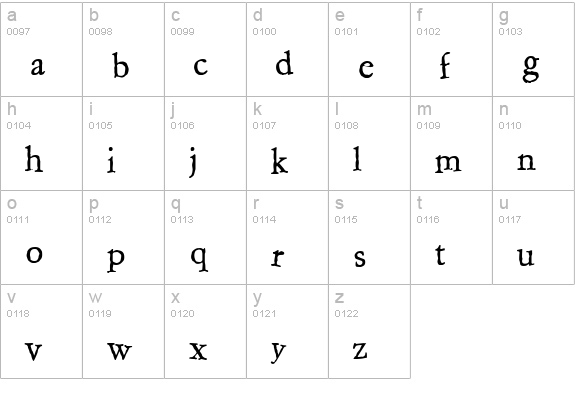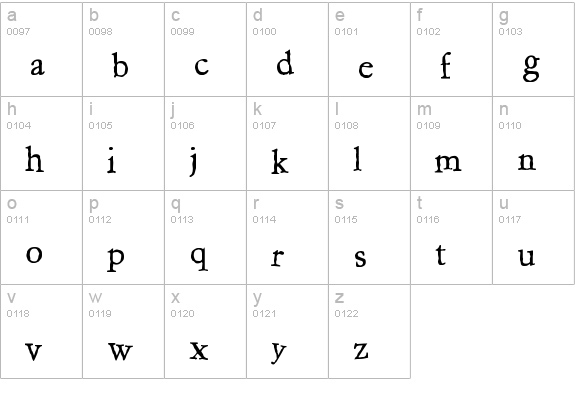
CK Constitution Font Details
The CK Constitution font is a timeless and elegant typeface that exudes sophistication and class. Its graceful strokes and clean lines make it perfect for a wide range of design projects, from invitations to branding materials. The font's classic yet modern style effortlessly captures attention and adds a touch of refinement to any text. What sets the CK Constitution font apart is not just its beauty, but also its accessibility. This exquisite font is available for free download at FontsMarket.com, making it a valuable resource for designers and creatives seeking to elevate their work without breaking the bank. Whether you're designing a wedding invitation, creating a logo, or crafting a magazine layout, the CK Constitution font is sure to impress with its versatility and charm. Don't miss out on the opportunity to enhance your designs with this stunning font – download CK Constitution today and experience the beauty and elegance it brings to your projects.